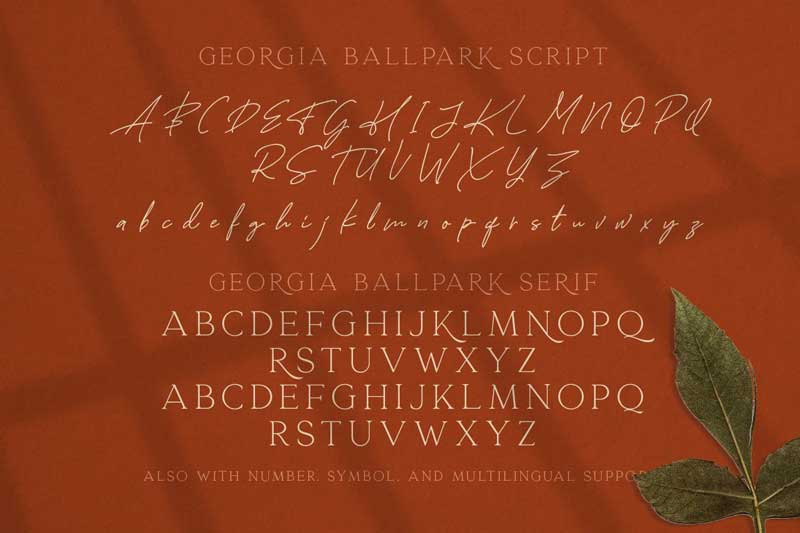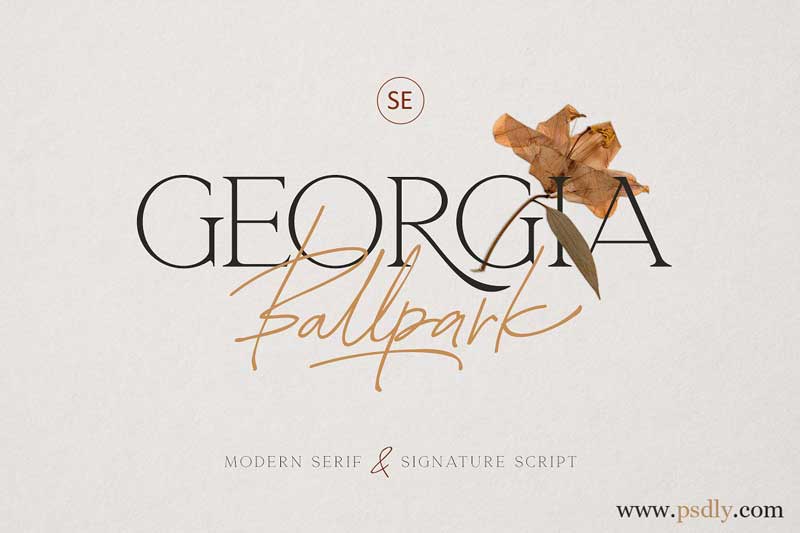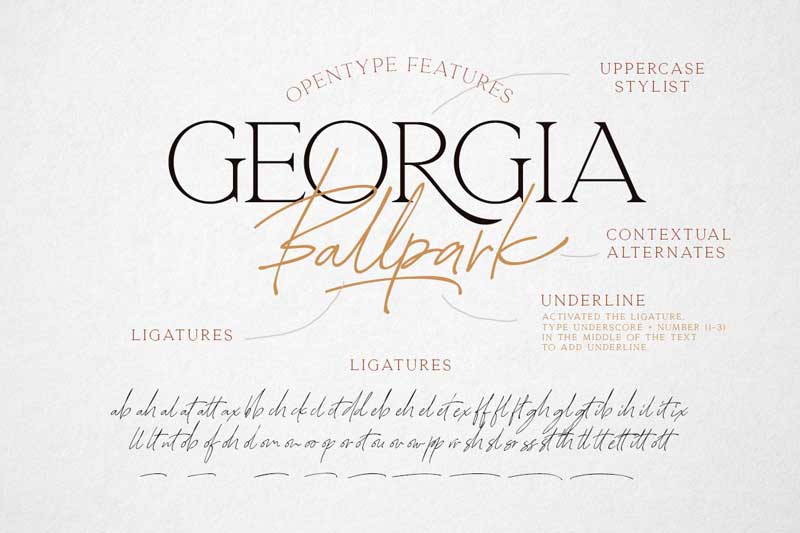
Georgia Ballpark Font Duo is the best combination of modern serif and signature script font. Georgia Ballpark Font comes with free handwriting script and delicate modern serif style. This font also supports multilingual, number and symbol, end swash and many ligatures. you can use this font for various purposes like logo, magazine, wedding and greeting cards.